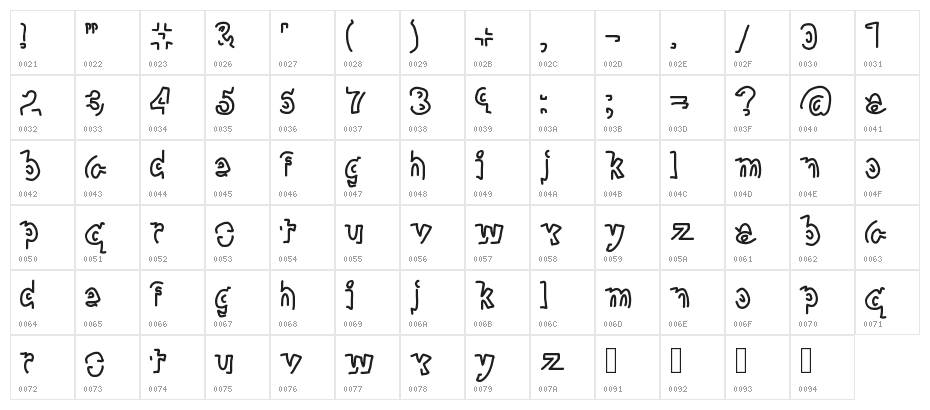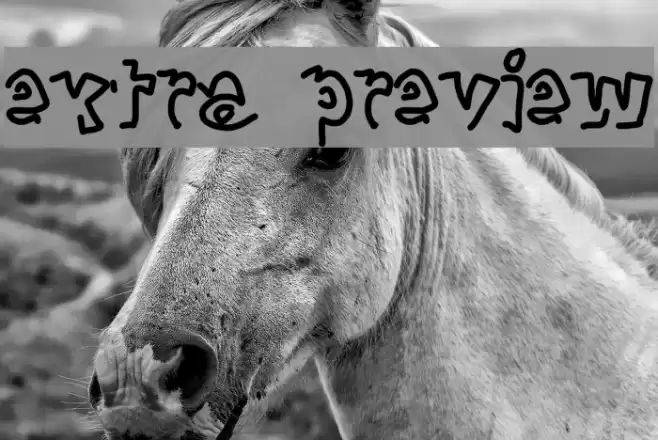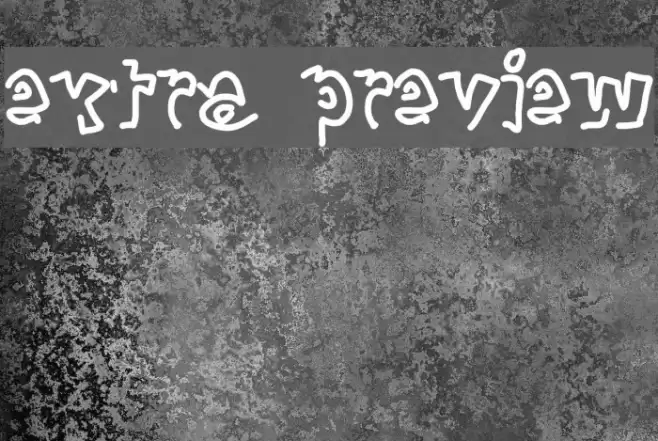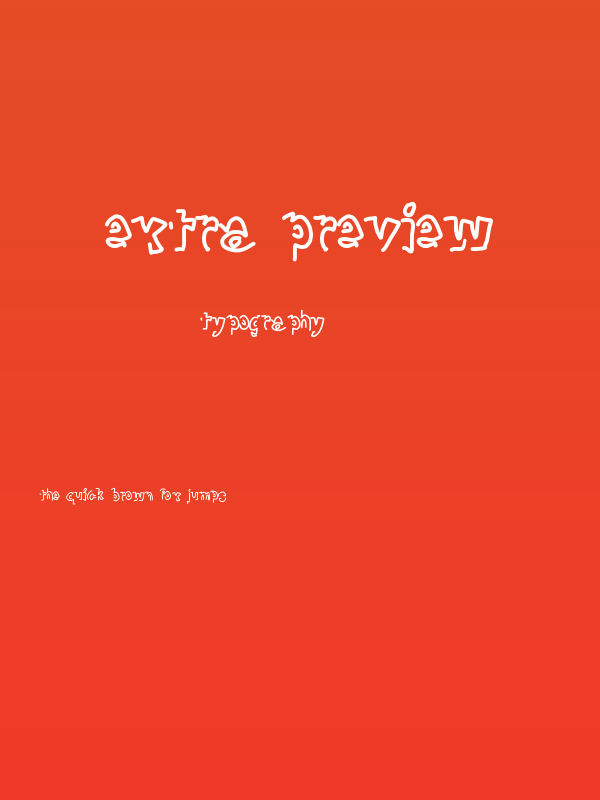
extra preview Font
extra preview Description
This font features a playful and whimsical design with a hand-drawn aesthetic. Each character is uniquely crafted with irregular strokes and varying thickness, giving it a lively and dynamic appearance. The letters have a casual, almost cartoonish style, with rounded edges and a slightly tilted orientation, adding to its quirky charm. The numbers and special characters follow the same playful theme, making the font suitable for creative and informal projects. Its distinctive style makes it stand out, perfect for designs that require a fun and engaging look.
| Overall Style | Whimsical, Playful, Hand-drawn |
| Proposed Projects | Ideal for children's books, comic strips, playful branding, and creative posters. |